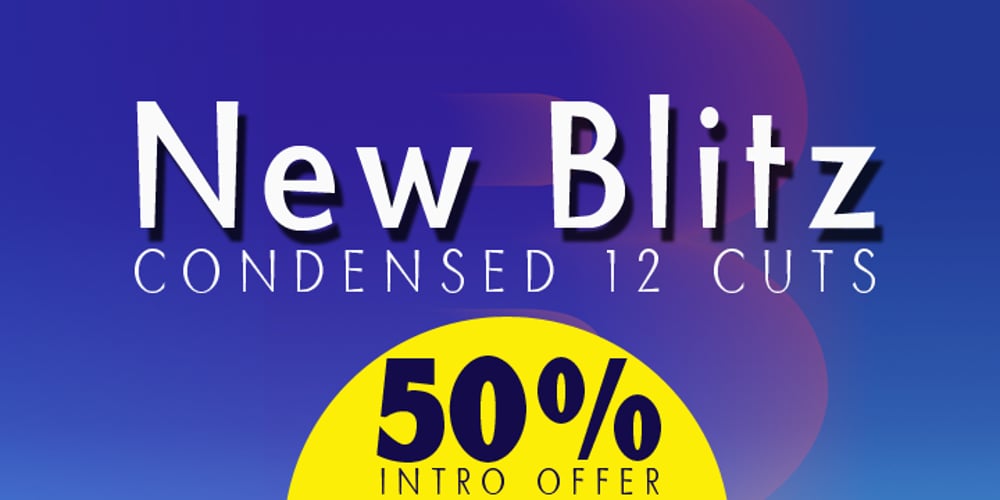
Blitz Condensed
Blitz Condensed font
Blitz Condensed Font Family was designed by Gert Wiescher and published by Wiescher Design. Blitz Condensed contains 12 styles and family package options. A very glitzy Blitz! Blitz-Condensed is an addition to my normal Blitz family. Both are topheavy fonts and are meant to be used together. The font gets a special shine because of this effect. And it stays readable despite its special design. Your designer of surprising typefaces, Gert Wiescher